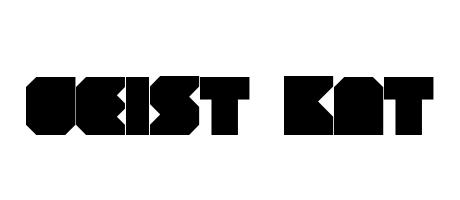
Geist Knt
GEIST KNT is a bold, sans-serif typeface with a strong, almost brutalist aesthetic. Its chunky, geometric letterforms are uniformly heavy, creating a sense of solidity and power. The sharp angles and lack of curves contribute to its assertive and modern feel, suitable for headlines or branding needing a forceful impact. The slightly uneven spacing between letters adds a touch of raw energy.